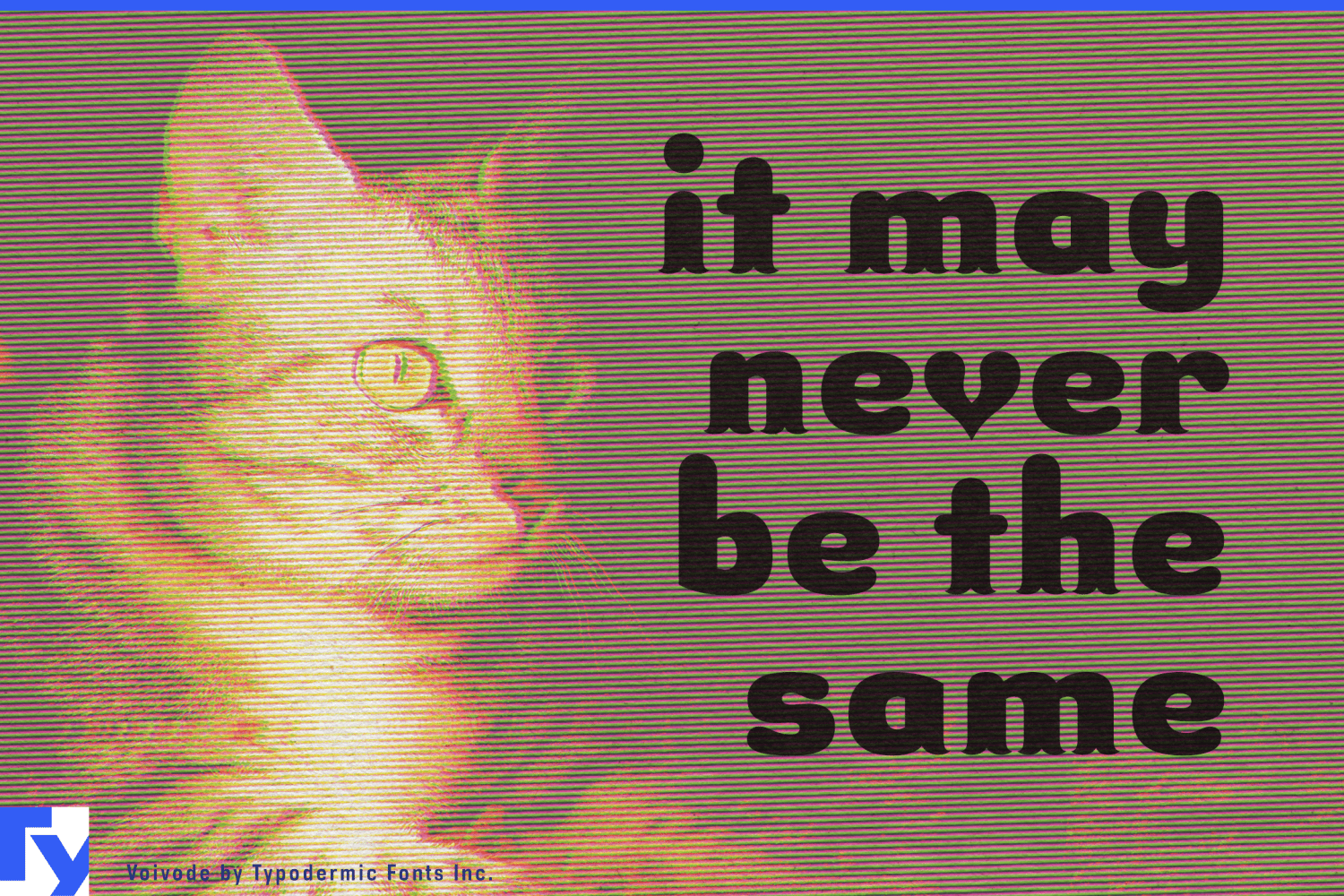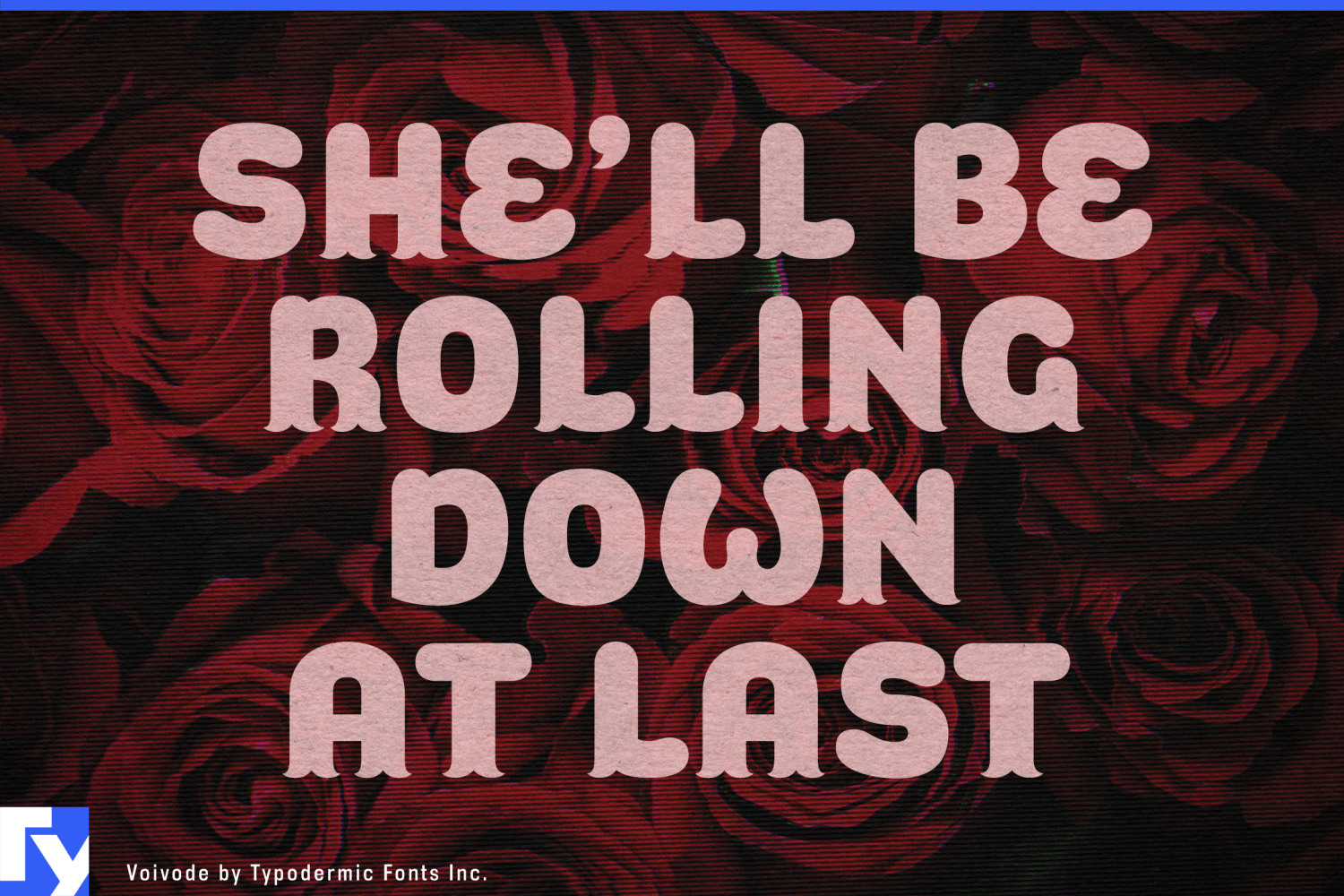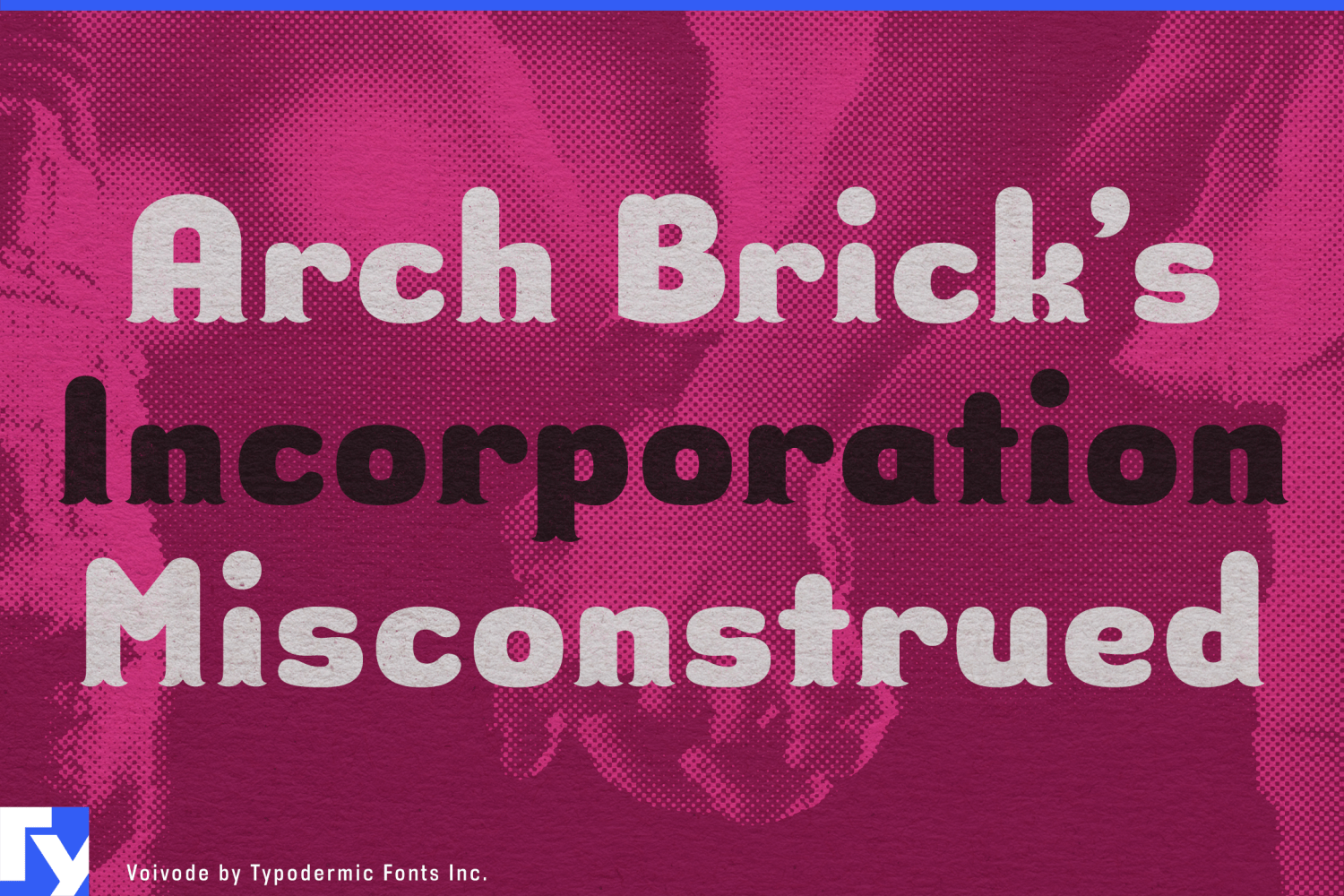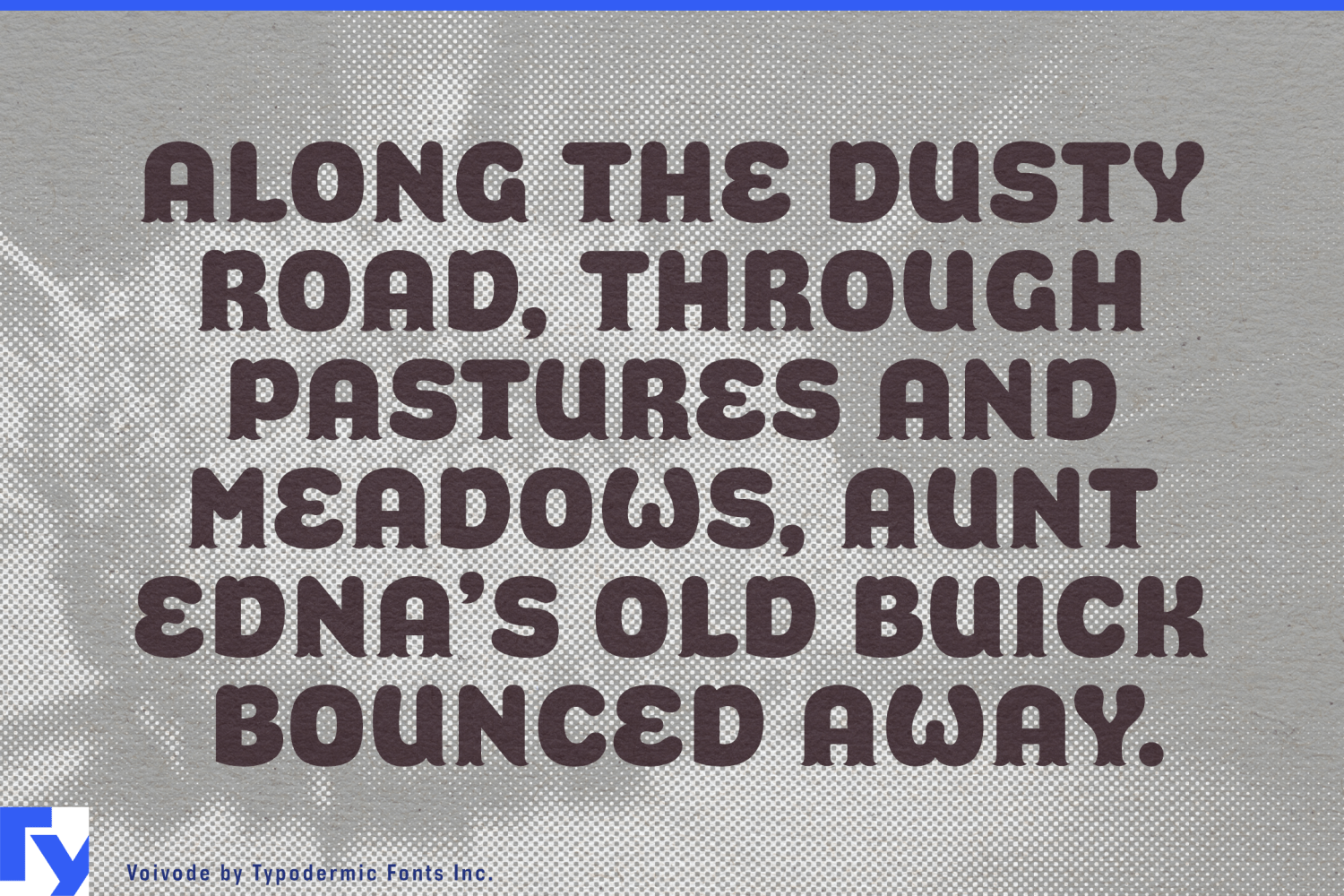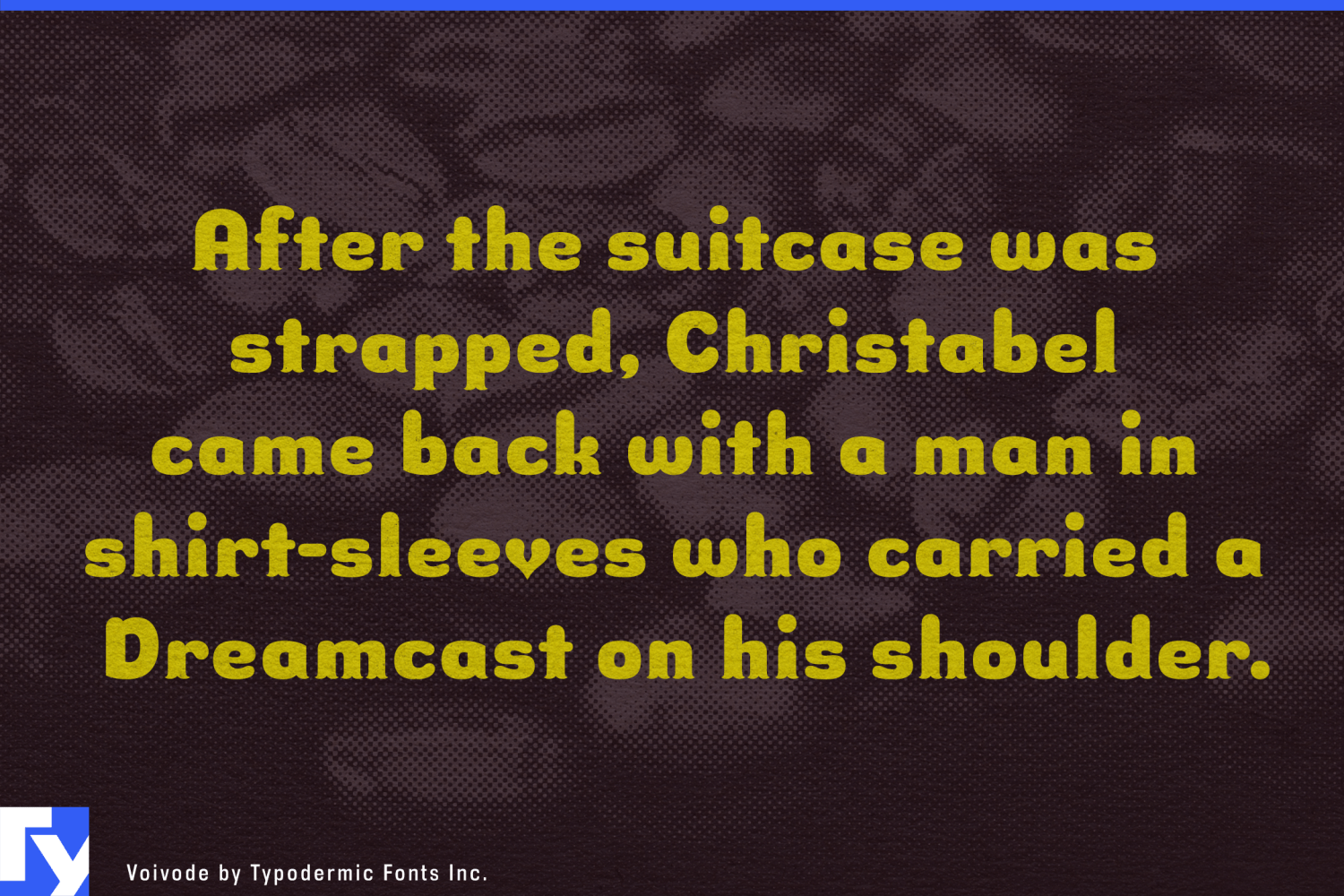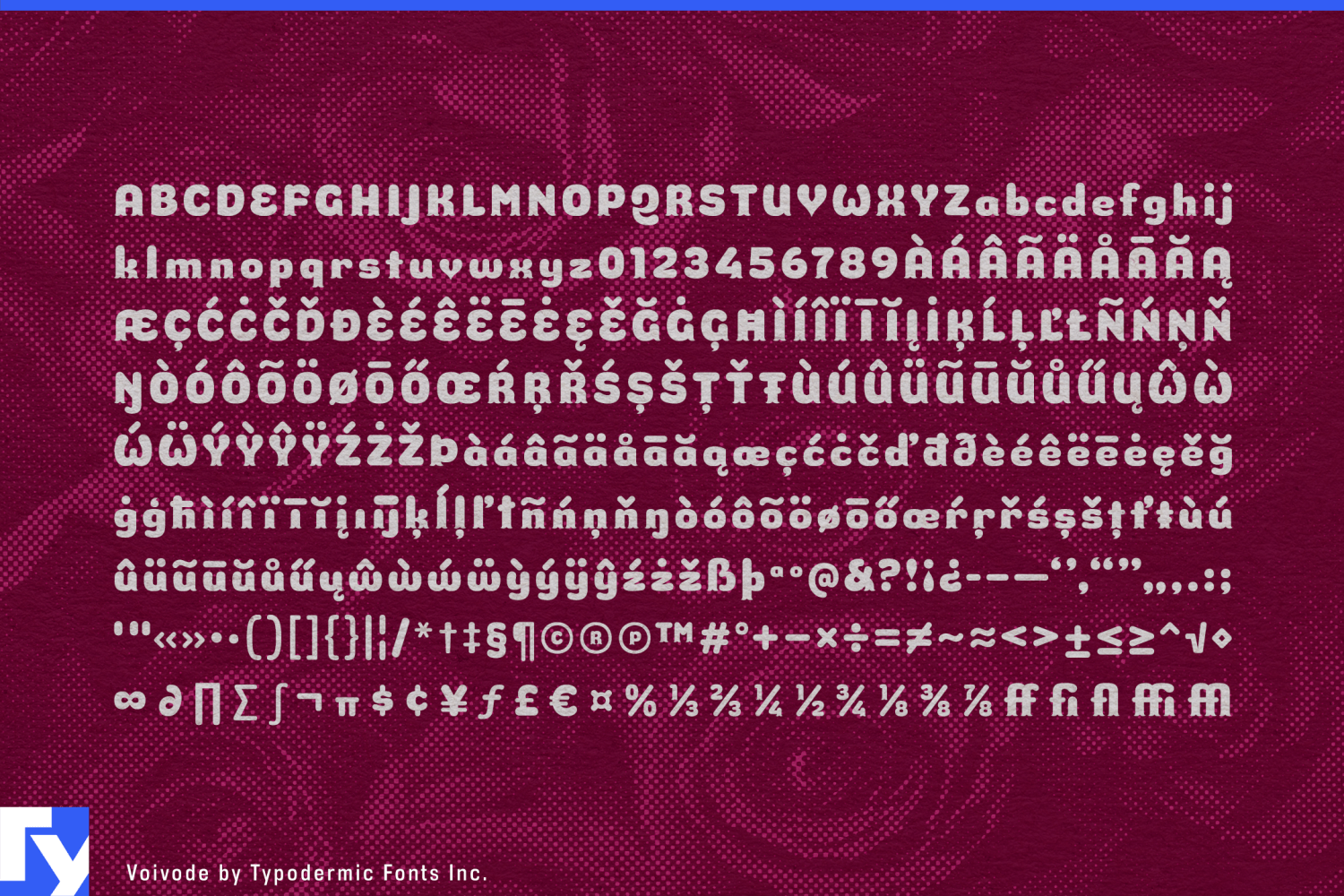
Voivode
Font Family by Typodermic
Fall head over heels for Voivode, the typeface that will sweep you off your feet and into a world of typographic romance. This is a love letter to the art of design, with each character crafted to make hearts skip a beat and imaginations soar.
Voivode’s fish-tailed letters dance across the page like lovers waltzing under starlight, their postmodern geometry adding a twist of contemporary flair to timeless elegance. Each curve and flourish is a tender caress, inviting the eye to linger and the soul to swoon. This is typography that doesn’t just speak—it serenades. But Voivode’s charm runs deeper than its enchanting surface. Its welcoming letterforms embrace your message with the warmth of a long-awaited reunion, lending your words a voice that’s both sophisticated and genuinely heartfelt. It’s the typographic equivalent of a candlelit dinner—intimate, captivating, and unforgettable.
Imagine Voivode gracing the cover of a romance novel, its playful serifs hinting at the passionate tales within. Picture it adorning wedding invitations, each character a promise of lifelong devotion. Envision it on Valentine’s Day cards, turning simple greetings into treasured keepsakes. From love letters to luxury brands, Voivode adds a touch of whimsy and a dash of cuteness that transforms the ordinary into the extraordinary. Voivode speaks the language of love fluently, supporting a wide array of Latin-based European writing systems. From passionate proclamations in Portuguese to sweet nothings in Swedish, this typeface ensures your message of affection knows no borders.